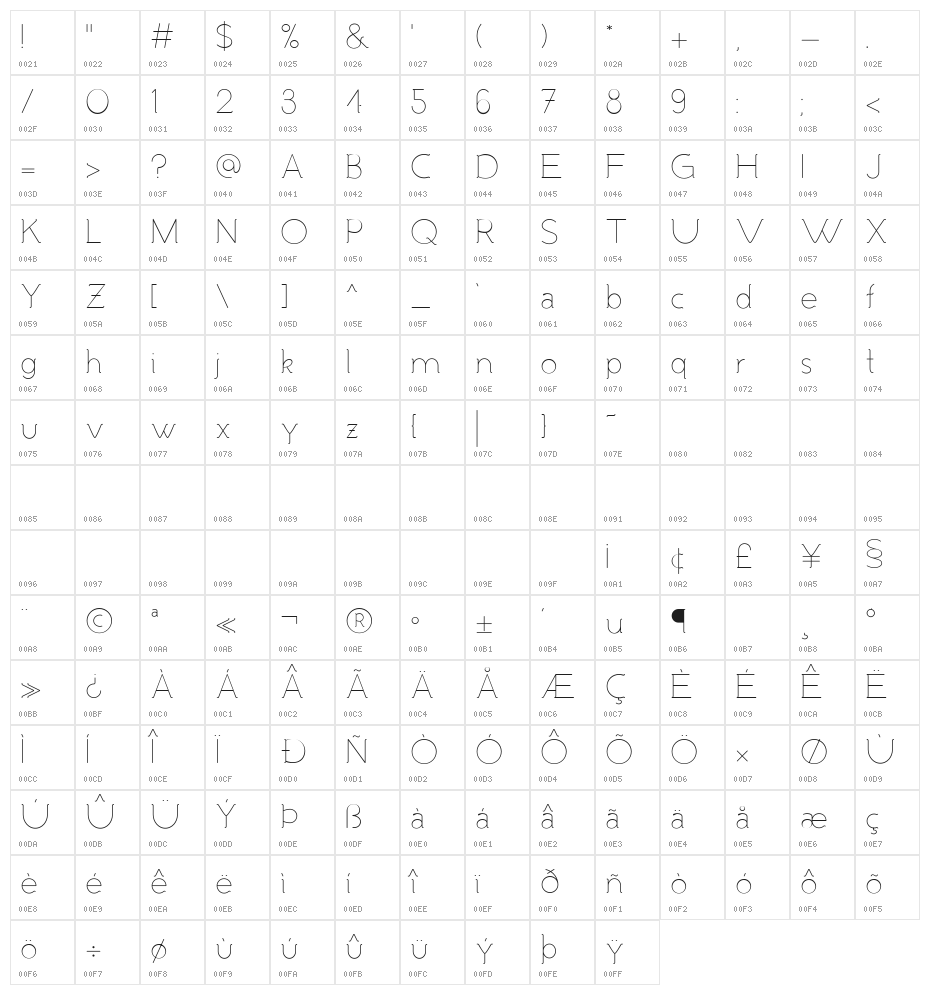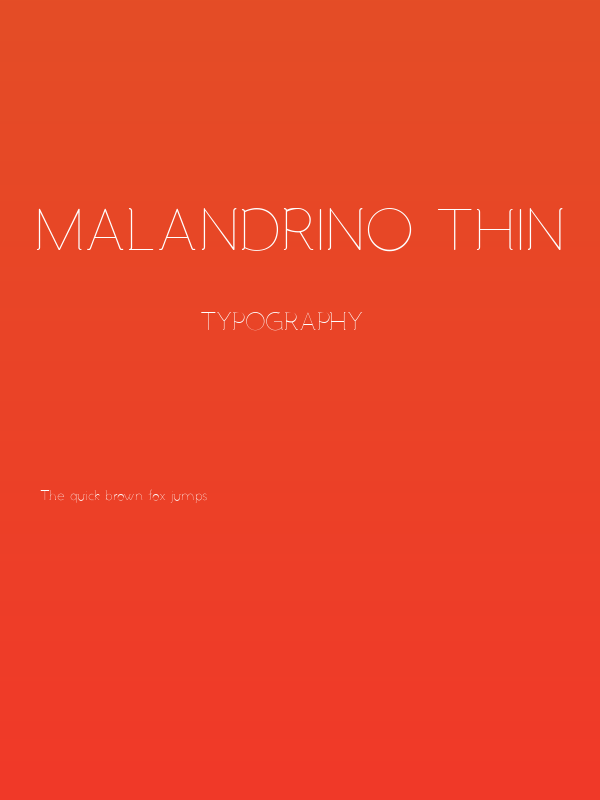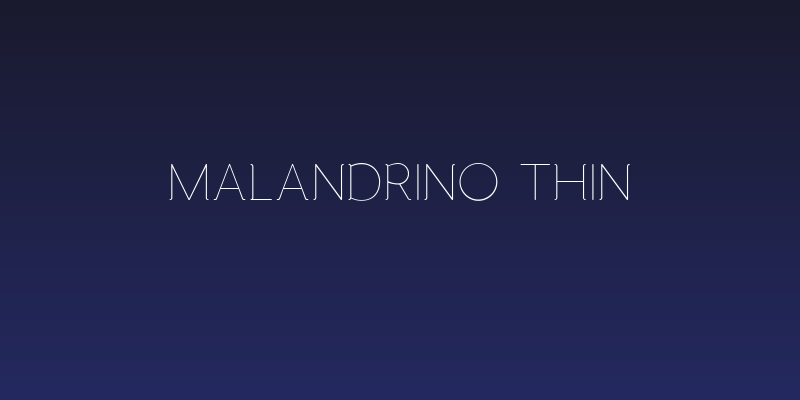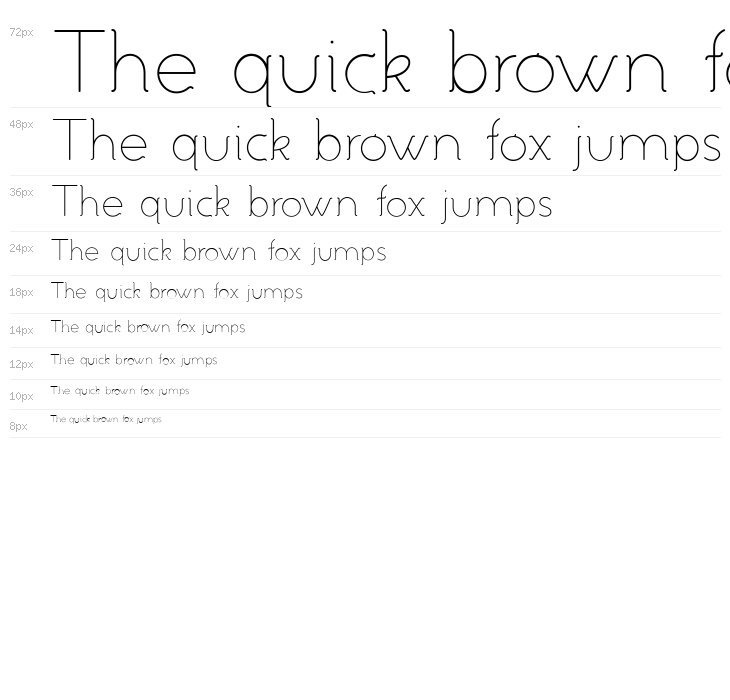
Malandrino Thin Font
Malandrino Thin Description
This font features a sleek and elegant design with thin, delicate lines that create a sense of modern sophistication. The characters are crafted with precision, offering a clean and minimalist aesthetic. The uppercase letters are tall and narrow, while the lowercase letters maintain a consistent flow with rounded edges. Numbers are uniform and align well with the overall style, and the special characters are distinct yet harmonious with the rest of the set. This font is perfect for projects that require a refined and contemporary look.
| Use Case | Headlines, Logos, Editorial design |
| Proposed Projects | Ideal for fashion branding, luxury product packaging, modern websites, and editorial design. |